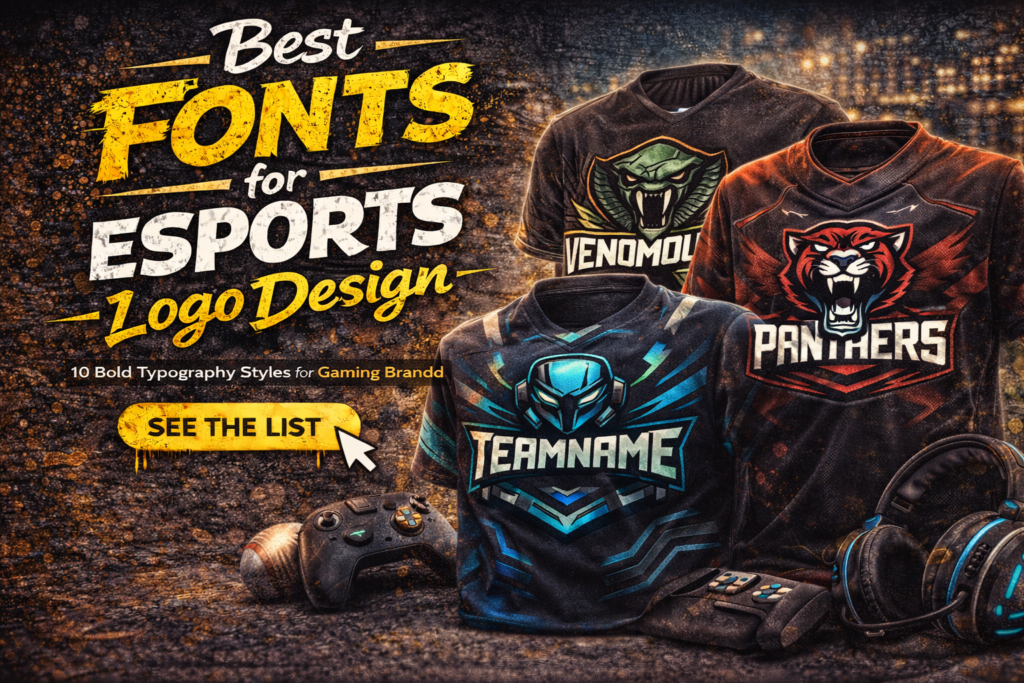
Best Fonts for Esports Logo Design: 10 Bold Typography Styles for Gaming Brands
Choosing the best fonts for esports logo design is essential for building a strong and memorable gaming identity. In esports, branding is everything — your logo needs to look aggressive, modern, and instantly recognizable across jerseys, streams, social media, and merchandise.
Typography plays a major role in how professional and competitive your team or gaming brand appears.
In this guide, we’ll explore the best typography styles for esports logo design.
Why Typography Matters in Esports Branding
Gaming logos need to stand out.
Typography affects:
• team recognition
• stream branding
• merch appeal
• professional identity
A strong font can make the brand look more competitive and premium.
10 Best Fonts for Esports Logo Design
1. Aggressive Display Fonts
Perfect for:
• esports teams
• gaming clans
• stream channels
Sharp and powerful.
2. Futuristic Fonts
Excellent for modern gaming branding.
Works great for tech and cyber themes.
3. Bold Sans Serif Fonts
Clean and strong.
Perfect for pro teams.
4. Gothic Gaming Fonts
Great for dark competitive aesthetics.
5. Cyberpunk Fonts
Perfect for modern gaming identity.
6. Minimal Tech Fonts
Best for premium esports brands.
7. Distressed Gaming Fonts
Creates battle-worn competitive feel.
8. Sharp Angular Fonts
Perfect for logo icon integration.
9. Display Sports Fonts
Works for team branding and jerseys.
10. Custom Lettering Fonts
Highly recommended for exclusive esports teams.
How to Choose the Best Fonts for Esports Logo Design
Choose based on:
Team Style
Competitive → angular / display
Futuristic → cyber / tech
Luxury → minimal / sans serif
Visibility
Must remain clear on:
• profile icons
• jerseys
• stream overlays
• merch
Scalability
Works from small logos to large banners.
Best Fonts for Gaming Branding
Final Thoughts
Choosing the best fonts for esports logo design is crucial for creating strong competitive branding.
Typography helps improve recognition, professionalism, and merch appeal.
Using premium fonts can make your gaming brand look more serious and exclusive.